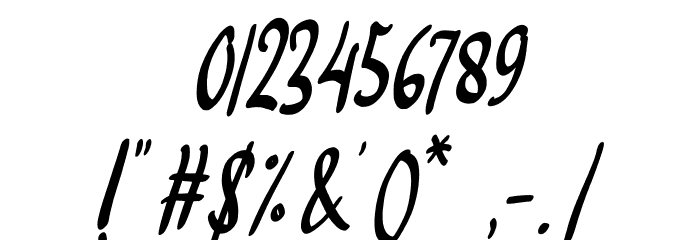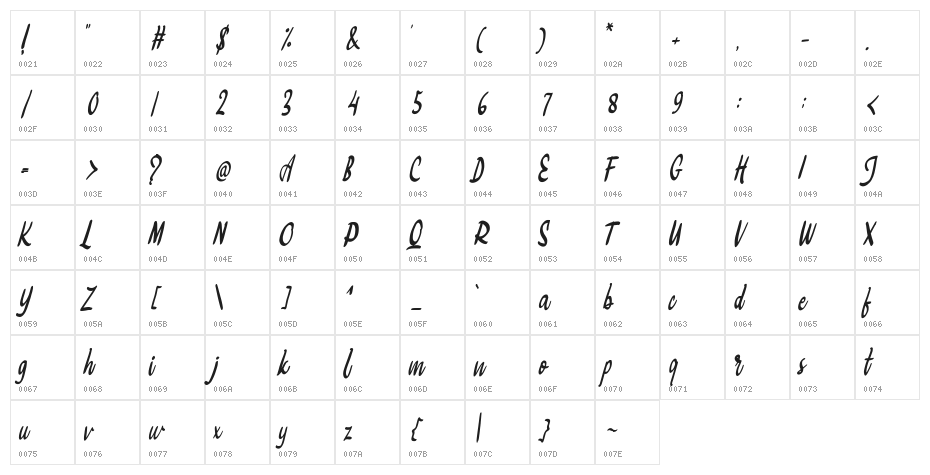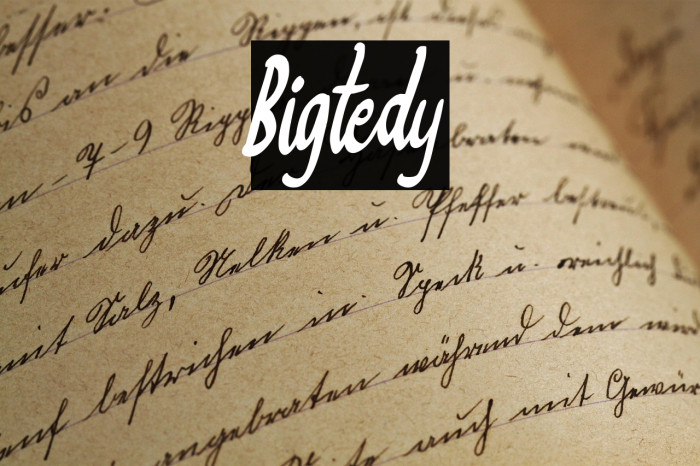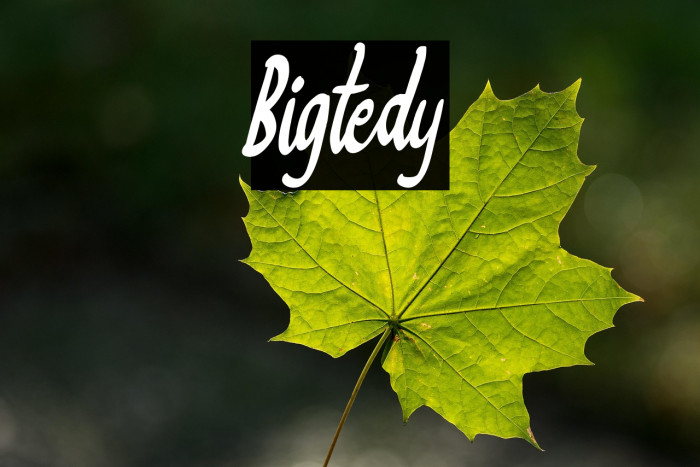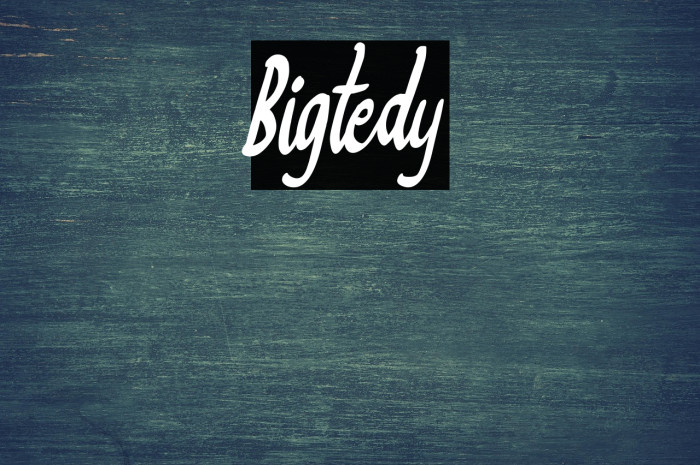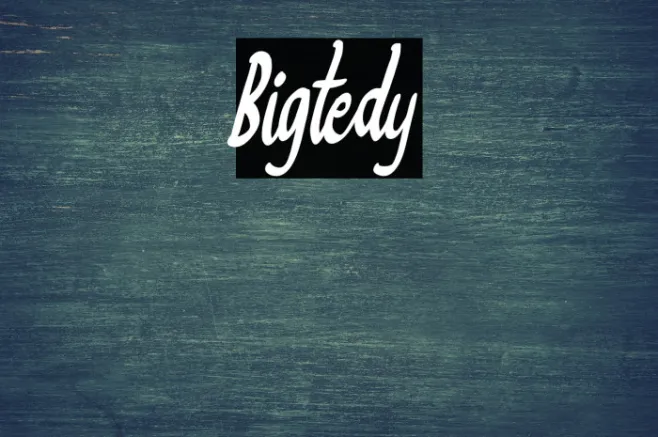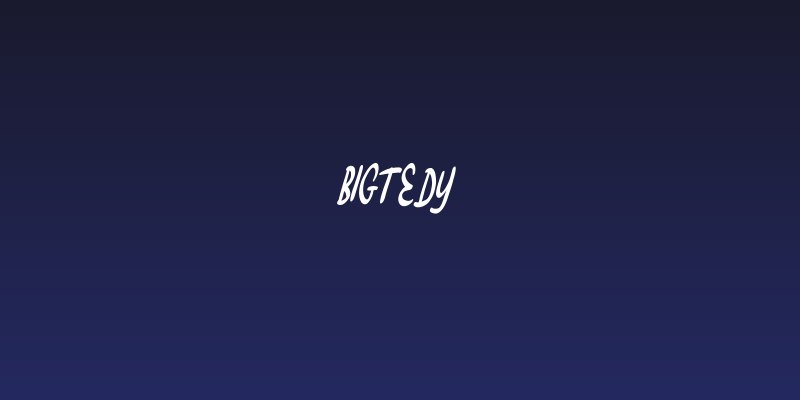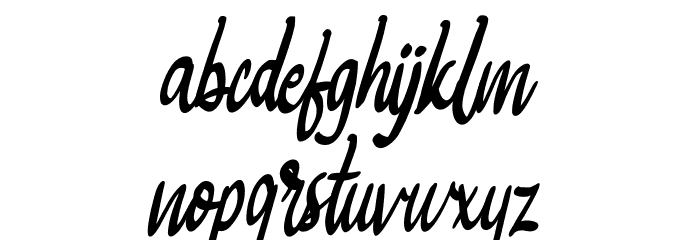
Bigtedy Font
Bigtedy Description
This font features a bold, flowing script style that mimics the fluidity of handwriting. The characters are slightly slanted, adding a dynamic and energetic feel. The uppercase letters are tall and elegant, while the lowercase letters maintain a consistent rhythm with smooth curves and loops. The numbers are clear and legible, matching the overall aesthetic. Special characters are creatively integrated, maintaining the font's cohesive style. This font exudes a sense of creativity and personal touch, making it ideal for projects that require a handwritten or artistic flair.
| Proposed Projects | Ideal for invitations, greeting cards, branding, and creative projects that require a personal touch. |